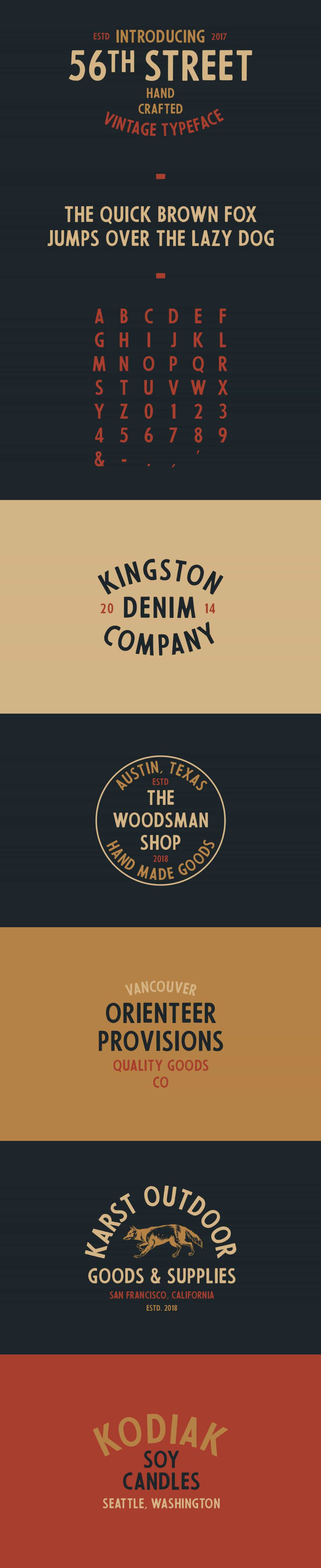
James Lafuente recently created 56th Stree a hand-drawn sans-serif typeface in 2018 with reference to the old signboards. It is highly versatile and can assist you in obtaining that retro look in your designs; containing uppercase types and numbers, along with different types of punctuation, it is perfect for inspiring branding badges or labels, apparel, and headlines.